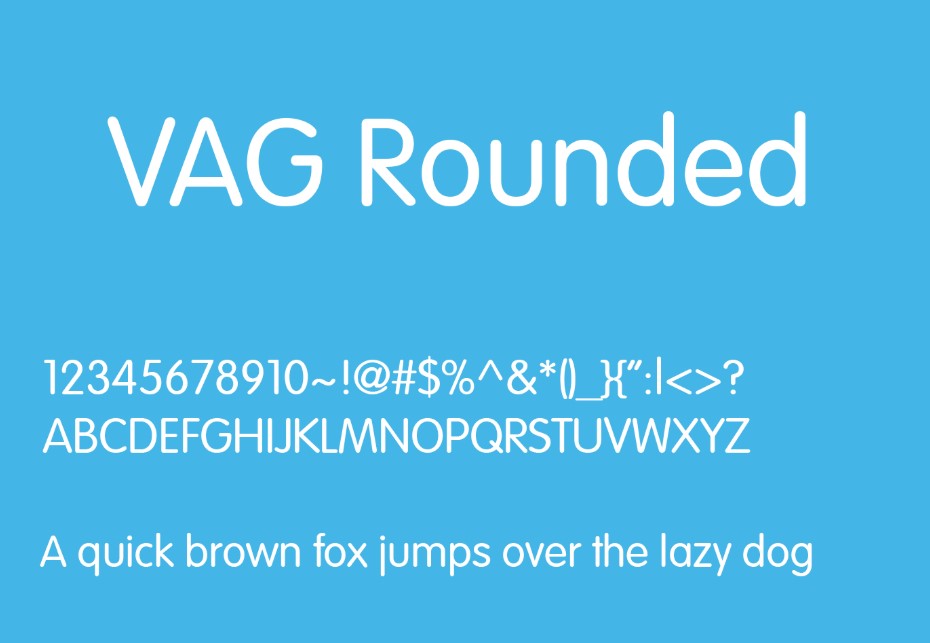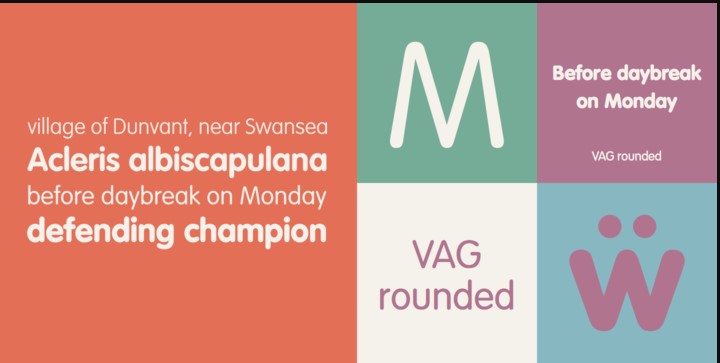
Vag Rounded Font
Vag Rounded Font is the most famous typeface of Adobe. This typeface is widely used for its Bold and italic and pairing function and also listed in google fonts. It’s far available in 8 weights supplying loads of glyphs and italic variations as properly. The font you use is a crucial thing of an identical time as designing an identification.
The present-day weights live actual to the style and fashion of vogue font with the familiar easy traces, fashionable shapes, a mixture of technical straightforwardness and natural warmth. Vag Rounded Font Free Its topographies excessive capital letters composed out through an aggregate of small and top-notch lowercase fonts. You may moreover use it on your net internet net web page or logo format. Categorically wonderful appropriate to expose and opinions of significance, this may be a terrific accumulation on your font series.